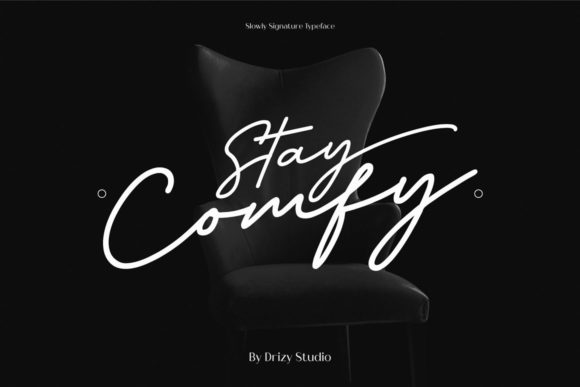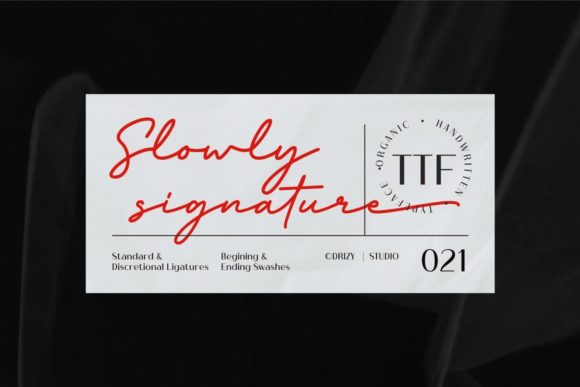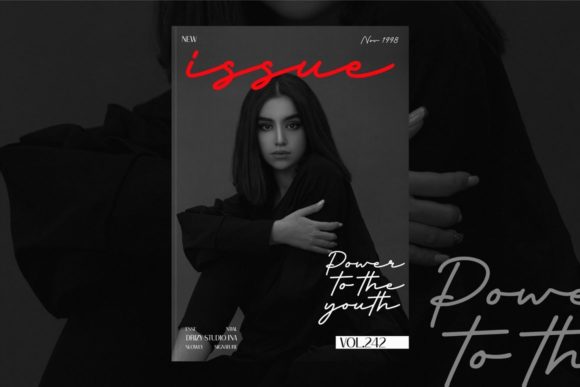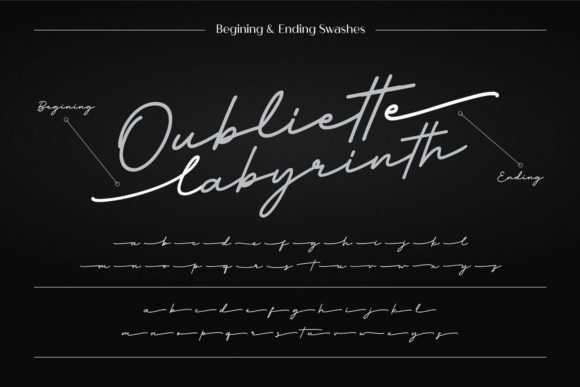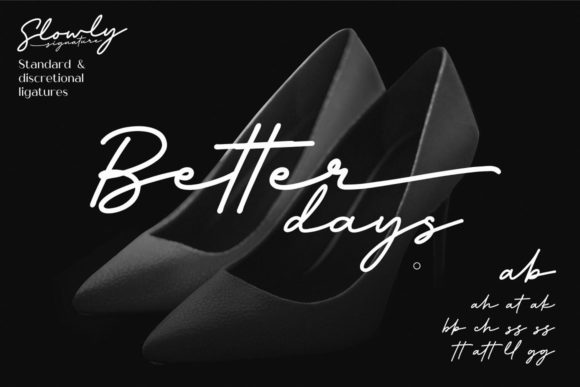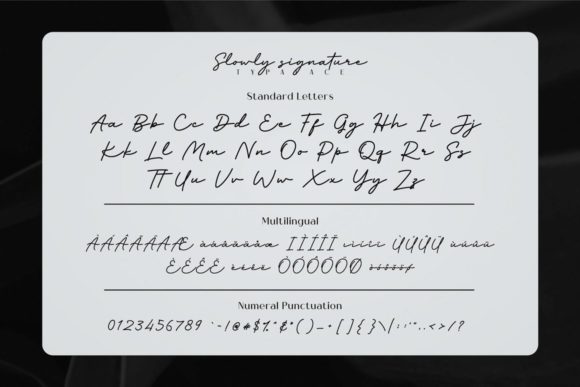
Introduction to Slowly Signature Font
Slowly Signature is a lovely and timeless handwritten font.
| 👤 Author | Drizy Studio |
It is the best choice for creating eye catching logos, branding and quotes Slowly Signature is PUA encoded which means you can access all of the glyphs and swashes with ease.
Key Features of Slowly Signature Font